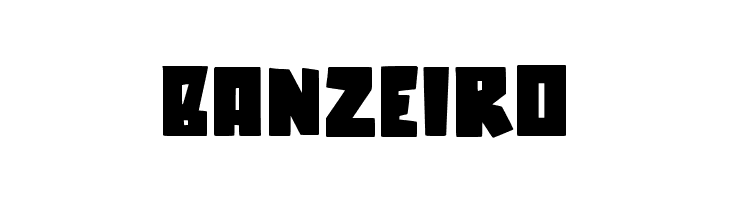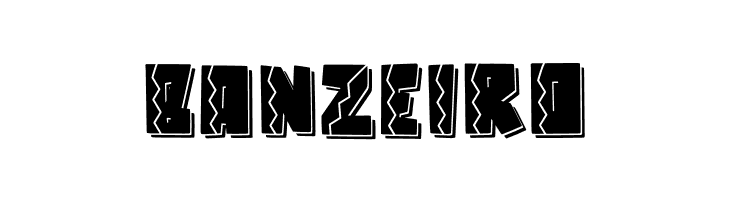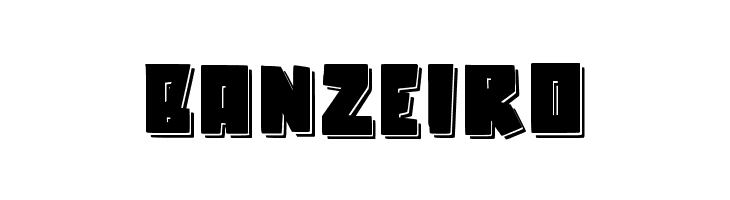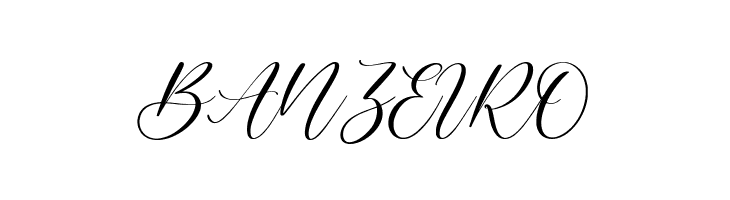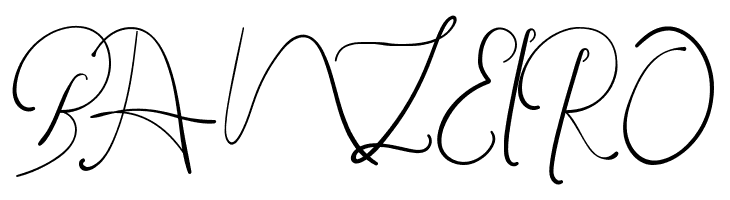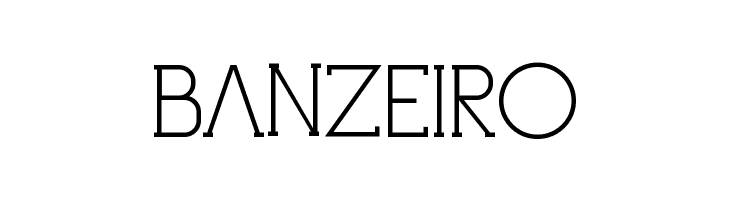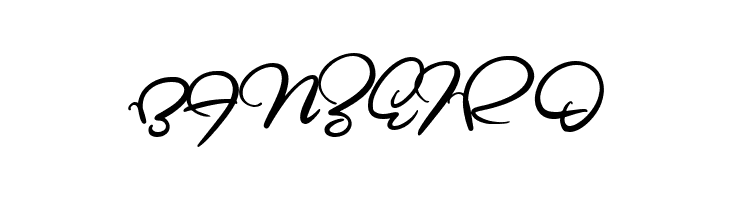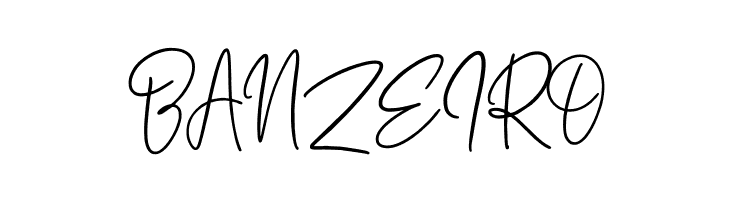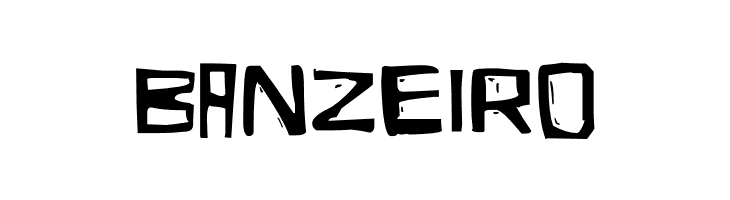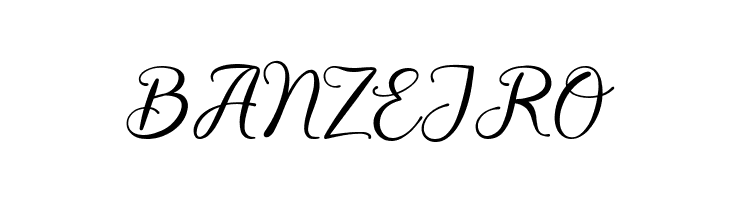
( Fonts by Modestype Studio )
A bold, playful font with thick, rounded characters and a whimsical style.
A bold, brush-style font with dynamic, expressive strokes.
( Fonts by Almarkhatype Studio )
A bold, geometric font with angular shapes and a strong presence.
( Fonts by Almarkhatype Studio )
A bold, geometric font with a three-dimensional effect and sharp, angular lines.
( Fonts by Almarkhatype Studio )
A bold, shadowed font with a three-dimensional, impactful design.
A bold, dynamic font with a modern, angular design.
A bold, hand-drawn font with a textured, woodblock-inspired style.
A bold, decorative font with thick strokes and unique curves.
A bold, playful script font with a modern, handwritten style.
A playful and elegant script font with a handwritten feel.
A lively and expressive handwritten font with fluid strokes and playful loops.
A modern, geometric font with elegant, angular uppercase and smooth lowercase letters.
A lively and elegant script font with flowing, interconnected letterforms.
( Fonts by Astigmatic One Eye Typographic Institute - Brian J. Bonislawsky - astigmatic.com )
A playful and dynamic font with jagged, electric outlines.
( Fonts by Astigmatic One Eye Typographic Institute - Brian J. Bonislawsky - astigmatic.com )
A bold, electrifying font with jagged outlines and dynamic energy.
( Cecilia Rodríguez )
A pixelated, digital-inspired font with a modern, dynamic slant.
An elegant and sophisticated font with high contrast and refined serifs.
A graceful, cursive script font with elegant, flowing lines.
A playful, handwritten font with smooth curves and a friendly appearance.
A sophisticated script font with flowing, elegant letterforms.
A fluid and expressive handwritten font with a cursive style.
A decorative, whimsical script font with floral motifs and a playful style.
A playful, whimsical handwritten font with tall, narrow letters and irregular strokes.
An elegant and flowing script font with smooth, cursive strokes.
( Fonts by Minetype Studio - Personal-use only. For commercial use please contact owner. )
A playful and elegant handwritten script font with smooth, flowing curves.
( Fonts by Gilar Studio - Personal-use only. For commercial use please contact owner. )
A modern, high-contrast font with geometric influences and sharp angles.
( Fonts by AZ Std - Muh Aswar - Personal-use only. For commercial use please contact owner. )
A playful and elegant script font with fluid, cursive strokes.
A bold, classic serif font with sharp, angular serifs and a strong presence.
A bold, rounded font with a playful, retro vibe.
A bold, italicized font with dynamic strokes and a modern yet classic appeal.
A bold outline font with a modern yet vintage flair, featuring hollow interiors and consistent character width.
A modern italic outline font with consistent stroke width and dynamic style.
( Fonts by Graphix Line Studio )
A casual, handwritten font with smooth, flowing lines.